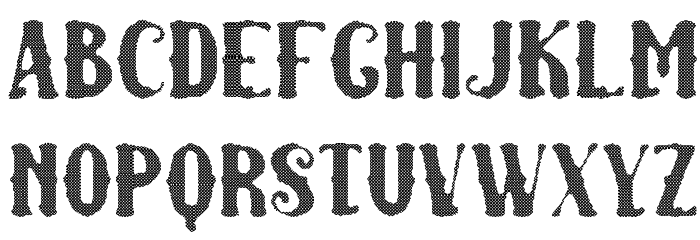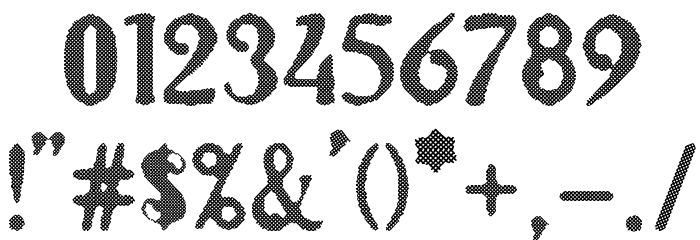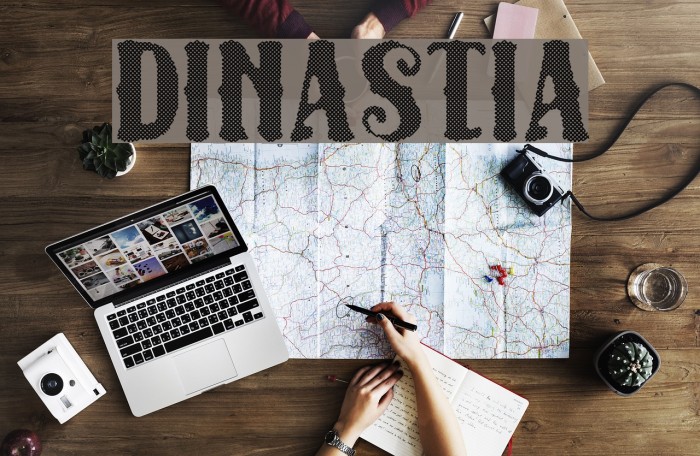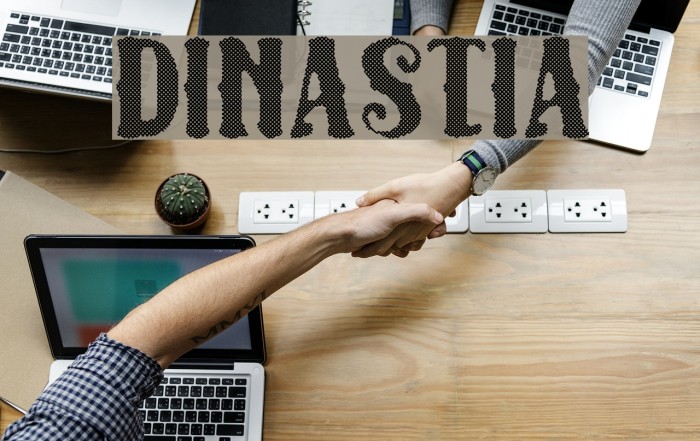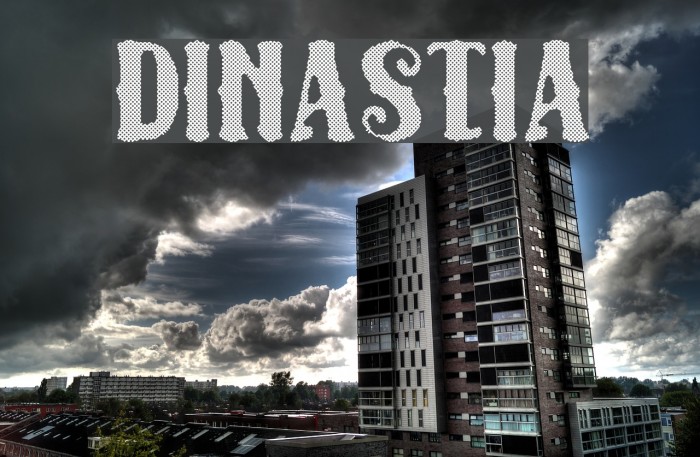
Dinastia Font
This font features a bold and decorative style with a vintage flair. The characters are characterized by thick strokes and unique, ornate details that give each letter a distinct personality. The uppercase letters are particularly elaborate, with some featuring swashes and flourishes that add to the overall decorative appeal. The lowercase letters maintain a consistent style, complementing the uppercase with their own subtle embellishments. Numbers and special characters are designed to match the ornate style, ensuring a cohesive look across all text. The font's textured appearance adds depth and interest, making it suitable for eye-catching designs.
A bold, decorative font with vintage flair and ornate details.
- Font: Dinastia
- Proposed Projects: Ideal for vintage-themed posters, logos, and branding materials that require a bold and decorative touch.
- Overall Style: Vintage